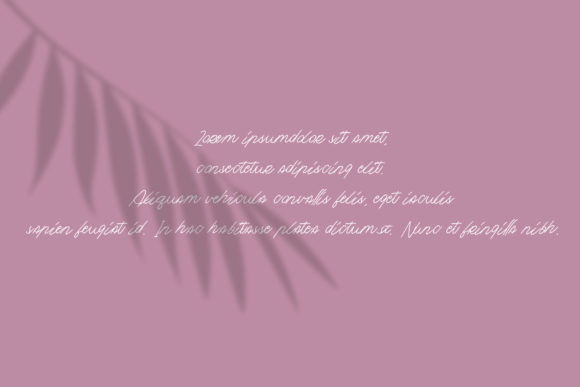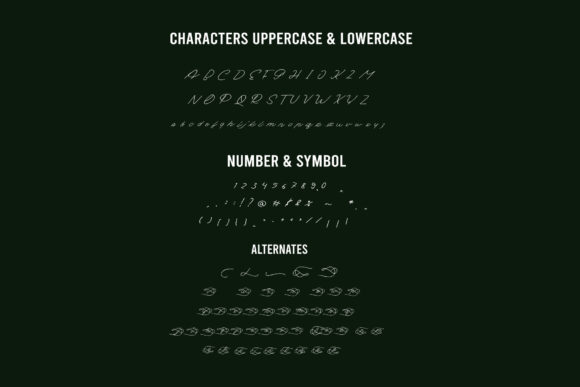
About Manopo Font
Manopo is a delicate, thin and cursive script font. It has a classy, elegant and modern look that can be used for logos, branding, invitations, stationery, wedding designs, social media posts, and much more! Manopo is PUA encoded which means you can access all of the glyphs and swashes with ease!